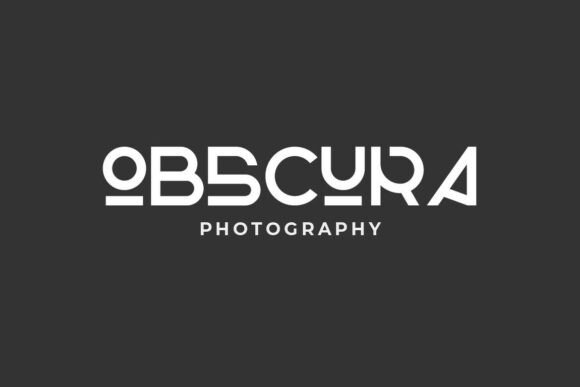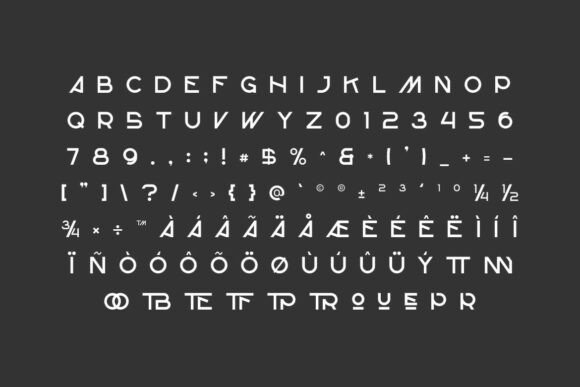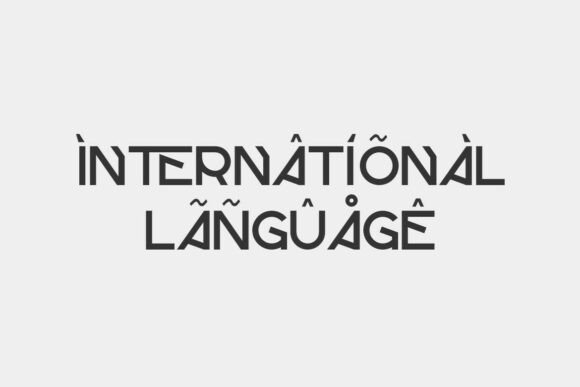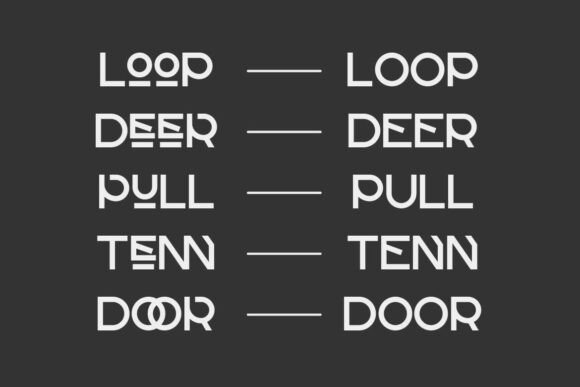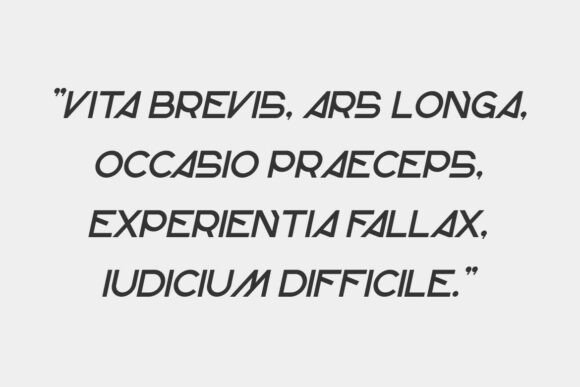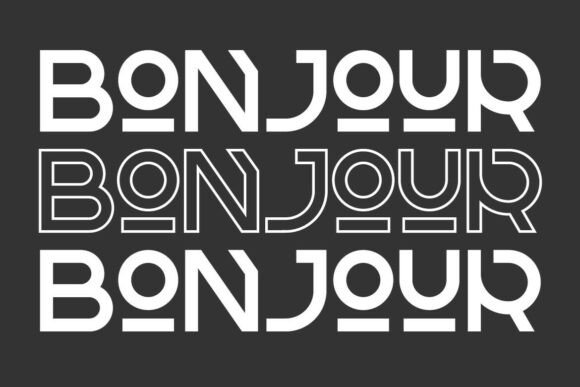
Introduction to Moderva Font Font
Fonts play a crucial role in design, and the Moderva Font font is a typeface that brings both character and versatility to any project. Whether you’re working on a branding project, a website, or a print design, the Moderva Font font offers a unique style that can elevate your work.
Moderva is a sleek geometric sans display font designed for precision, balance, and timeless modernity.
With its even proportions, clean curves, and minimalist character, Moderva is ideal for branding, editorial layouts, websites, packaging, tech products, and UI/UX interfaces that require clarity and elegance .
Key Features of Moderva Font Font
Why Choose Moderva Font Font?
The Moderva Font font is more than just a typeface – it’s a design tool that helps you communicate your message with style and clarity. Its unique character set and versatile design make it suitable for a wide range of applications, from elegant invitations to bold headlines.
With its carefully crafted letterforms and balanced proportions, the Moderva Font font ensures readability and visual appeal across all mediums.
What makes Moderva Font font special?
The Moderva Font font stands out with its unique design, exceptional readability, and versatility across various design applications.